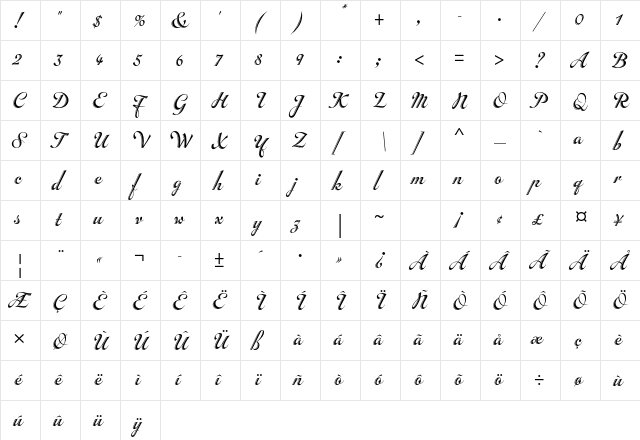
Inscription Std Regular
| Designer | Alan Meeks |
Design Context for Inscription Std Typeface
Inscription Std brings a calligraphic fluidity to the page — its connecting strokes and expressive curves give it an unmistakably human quality.
Font Pairing: Combine Inscription Std with a simple geometric sans for maximum contrast — the tension between flowing curves and clean structure is a classic typographic pairing.
Pro Tip: Use Inscription Std for short runs of text — names, titles, or taglines. Extended body copy in script faces tires the eye quickly.